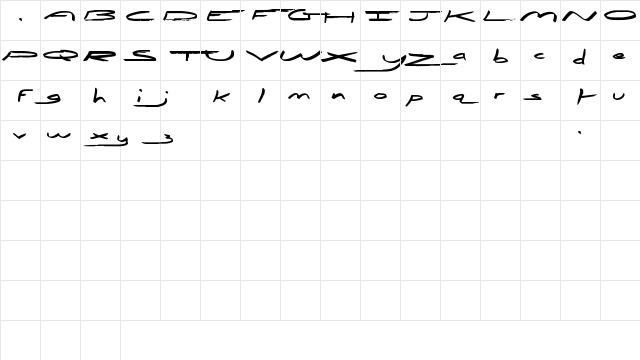
Abrahams Wish Regular Free Font
Abrahams Wish Regular
Foundry: Jonathan S. Harris
Designer: Jonathan S. Harris
Design Context for Abrahams Wish
Abrahams Wish is a composed and adaptable typeface that performs quietly and consistently across a wide range of design contexts.